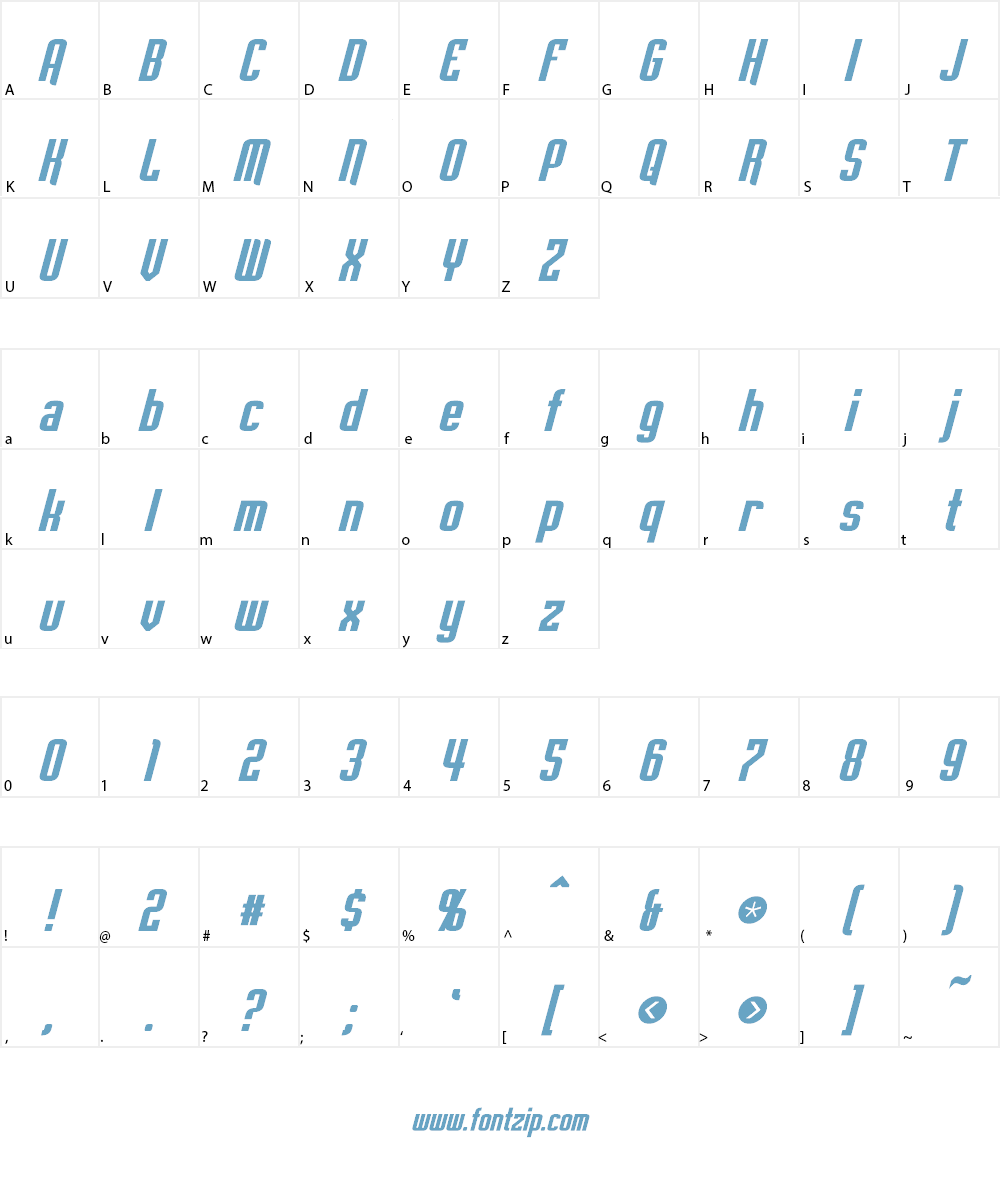
A simple, bold typeface with some rounded edges. This is based on the lettering found in a number of 'family-owned' Mexican restaurants. Includes full alphabet, extended punctuation, Euro. Includes bold, italic, hollow, and extended versions.